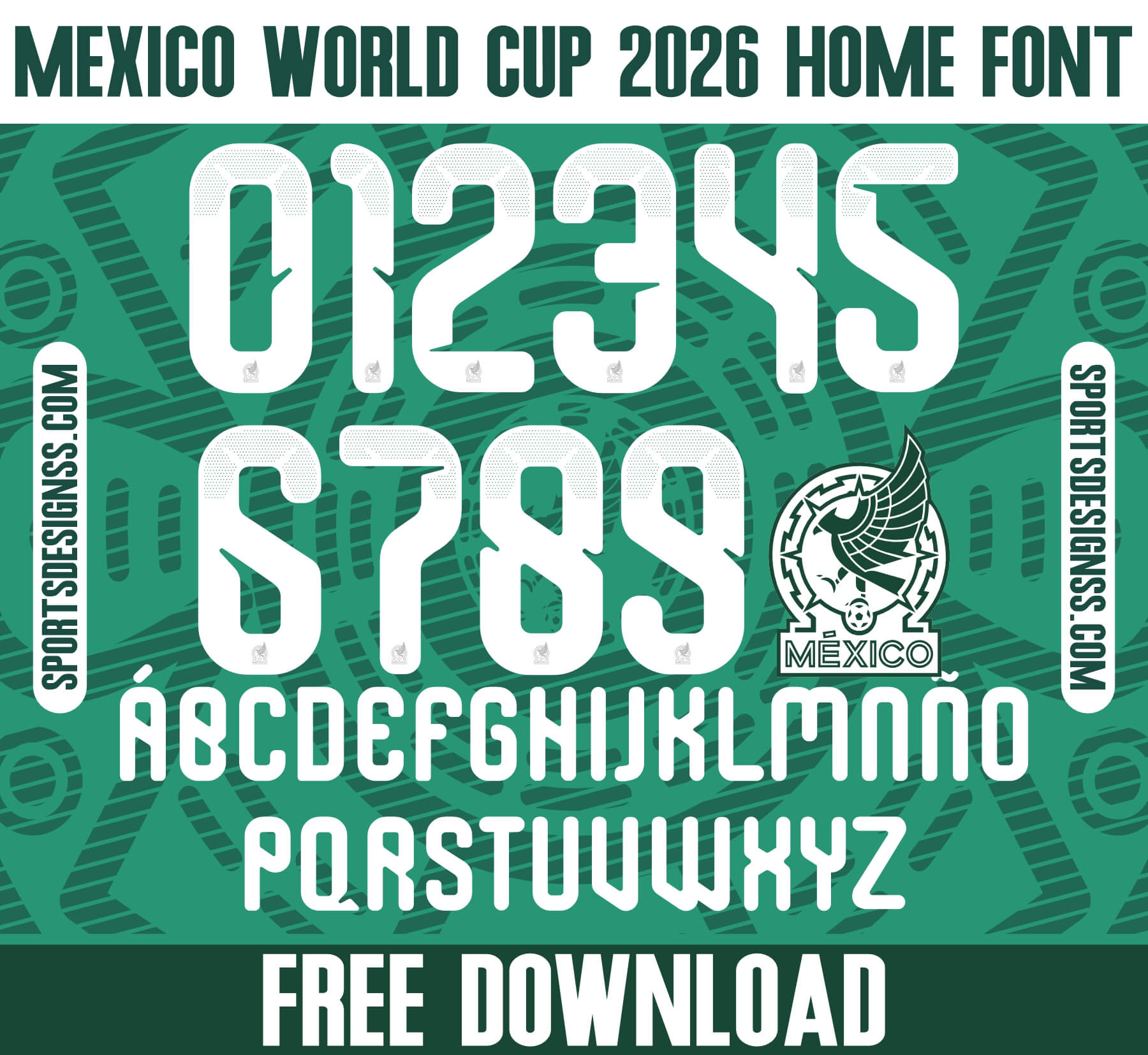
Free Mexico World Cup 2026 Home Jersey Font Download the Mexico 2026 Home Jersey Font for free and create authentic football-inspired name and number designs. Perfect for jersey makers, graphic designers, football fans, and sports projects. ✅ FREE Download ✅ 1 × OTF Font File Included ✅ Authentic Mexico 2026 Home Jersey Style ✅ Letters A–Z & Numbers 0–9 ✅ Easy Installation on Windows & Mac ✅ Compatible with Adobe Illustrator, Photoshop, CorelDRAW, Canva Pro & More ✅ Perfect for Jerseys, Posters, Social Media Graphics & Fan Projects Instant Digital Download ⚠️ Free version includes the OTF font file only.